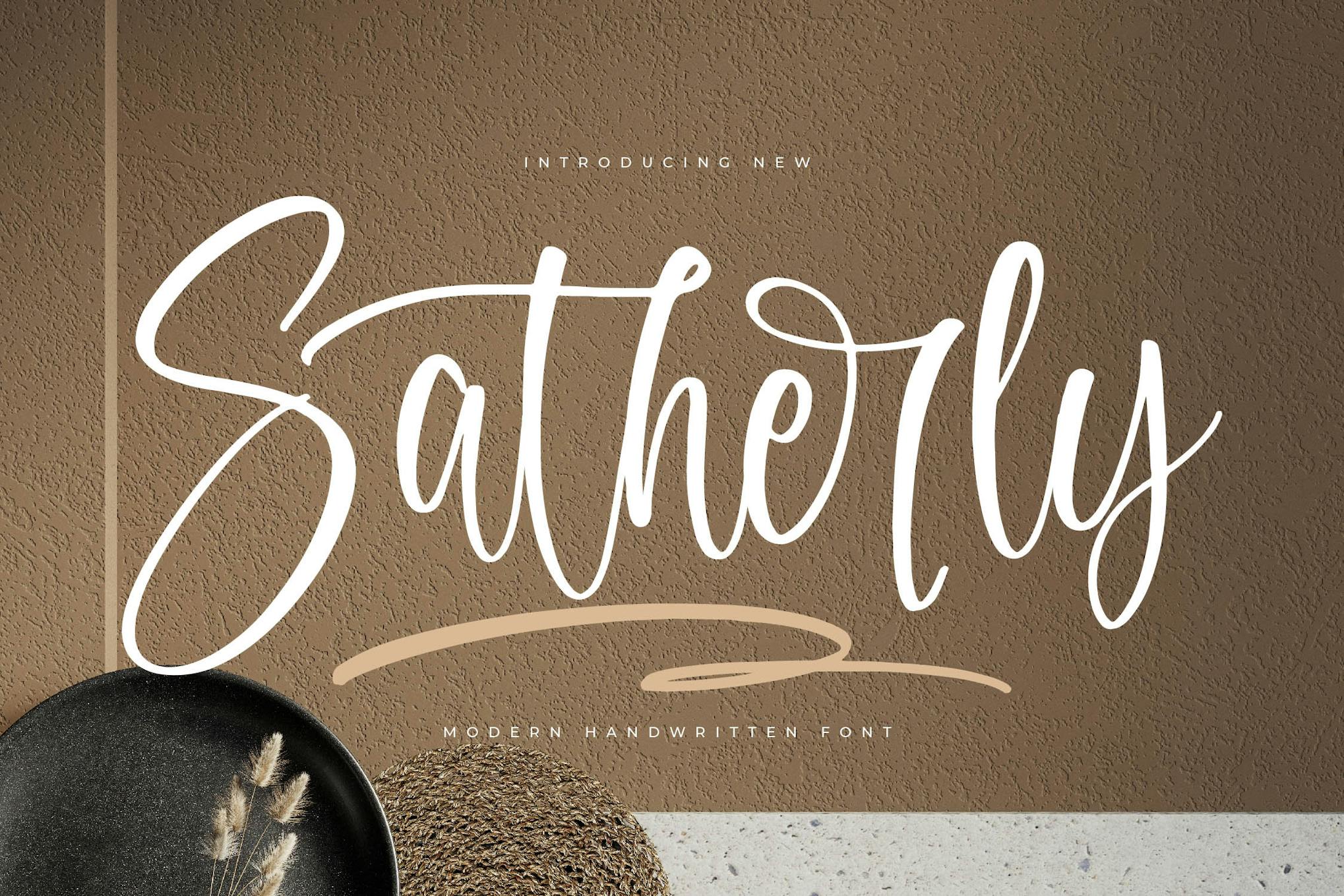
Satherly Modern Handwritten Font is a stylish typeface designed to bring a personal touch to any project. With its fluid, contemporary handwritten style, it enhances the aesthetic of digital content, making it perfect for invitations, branding, or social media graphics. Its normal spacing and versatility in size ensure it complements a variety of designs seamlessly.